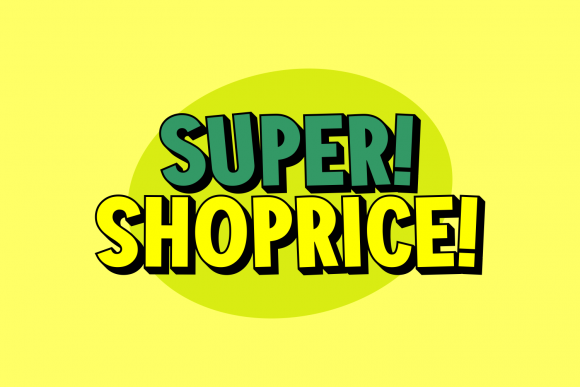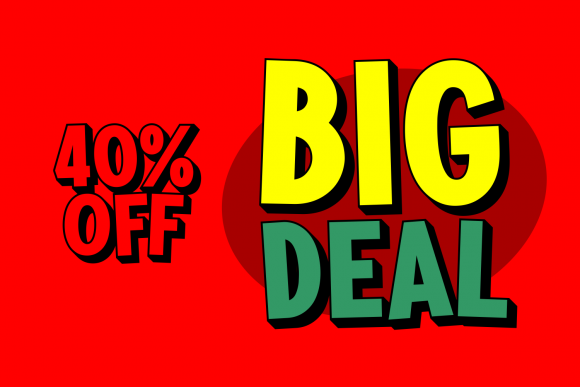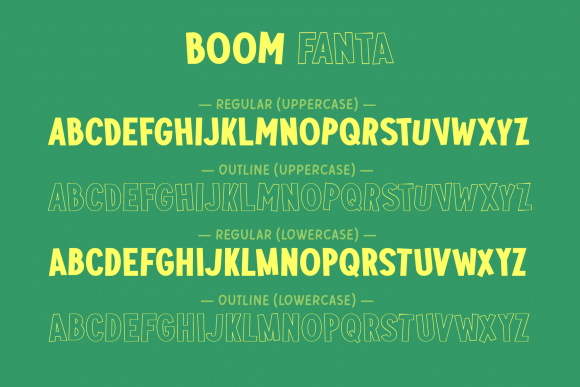
Unleash the Fun with Boom Fanta Font
Have you ever sat staring at your computer screen, struggling to bring your creative vision to life? The cursor blinks, and the blank page stares back, taunting you with its emptiness. Suddenly, a burst of inspiration hits, and you envision a design that’s bold, playful, and eye-catching. This is where Boom Fanta Font comes in – a fun and cartoonized display font that’s about to revolutionize your design game.
Boom Fanta Font is a versatile tool that offers both regular and outline styles, allowing you to mix and match to create truly outstanding designs. Whether you’re a seasoned designer or just starting out, this font is an invaluable addition to your toolkit. With its playful charm and versatility, Boom Fanta Font is sure to add a pop of excitement to your next project.
Boom Fanta Font Key Features
- Font Family: Boom Fanta is a display font family designed for use in digital and print media.
- Unique Characteristics: Boom Fanta features a bold, playful, and energetic design aesthetic, making it perfect for use in branding, advertising, and entertainment-related projects.
Boom Fanta Font Review
Overall, I’m a fan of the playful and energetic vibe that Boom Fanta Font brings to the table. ✨ It’s perfect for designers looking to add a touch of whimsy and fun to their projects. The font’s bold lines and vibrant colors make it an excellent choice for anything from branding to packaging design.
Some of the things that work well with Boom Fanta Font include:
- Its versatility – Boom Fanta Font can be used for a wide range of projects, from children’s books to advertising campaigns.
- Its high level of customization – the font can be easily adapted to fit the needs of any design project.
- Its bold and playful aesthetic – perfect for designers who want to add a touch of personality to their work.
- It may not be the best choice for formal or professional projects – the font’s playful vibe may not be suitable for all audiences.
- It may be difficult to read in smaller sizes – the font’s bold lines can make it tricky to read at smaller font sizes.
- It may not be suitable for projects that require a high level of subtlety – the font’s bold and playful aesthetic can be overwhelming in some cases.
Overall, I think Boom Fanta Font is a great addition to any designer’s toolkit. While it may have some limitations, its versatility and high level of customization make it a great choice for designers who want to add a touch of fun and personality to their work. ⚠️ Just be sure to use it wisely and in the right context!
Boom Fanta Font is ideal for:
- Creating eye-catching titles and headings.
- Designing bold and playful graphics.
- Adding a touch of whimsy to your branding materials.